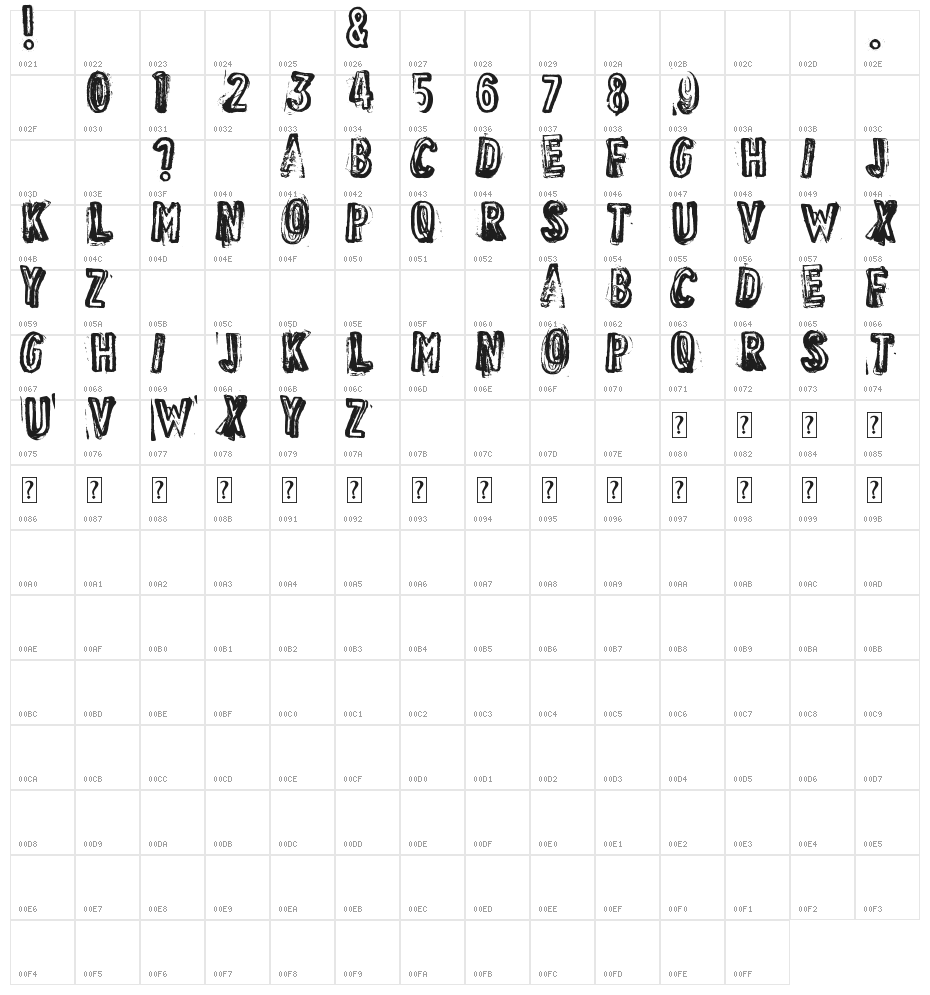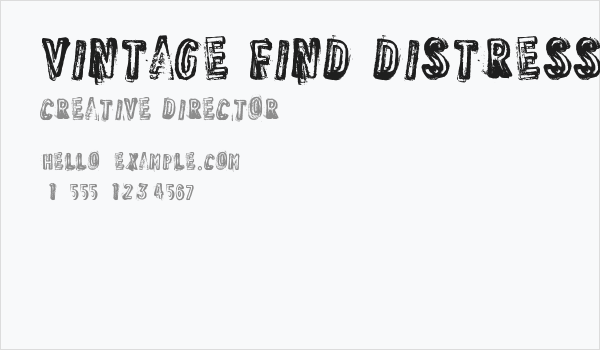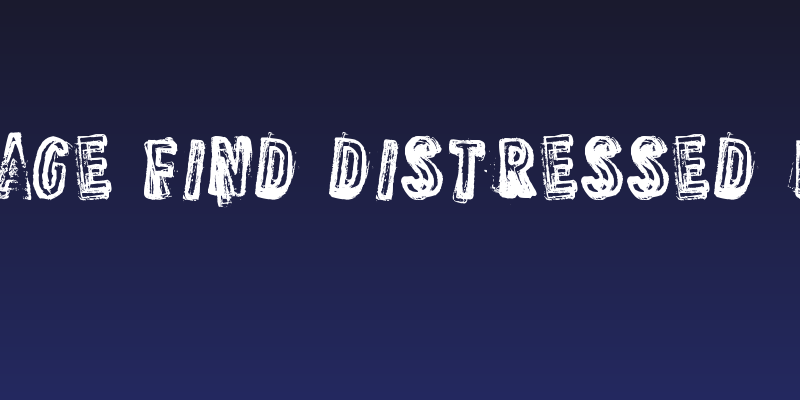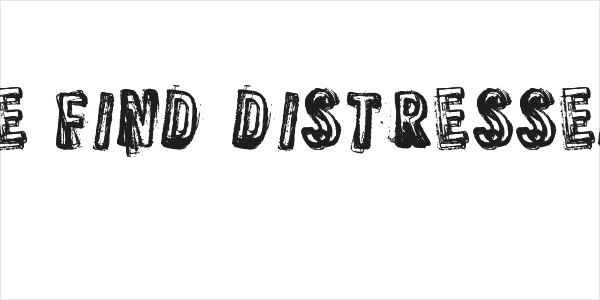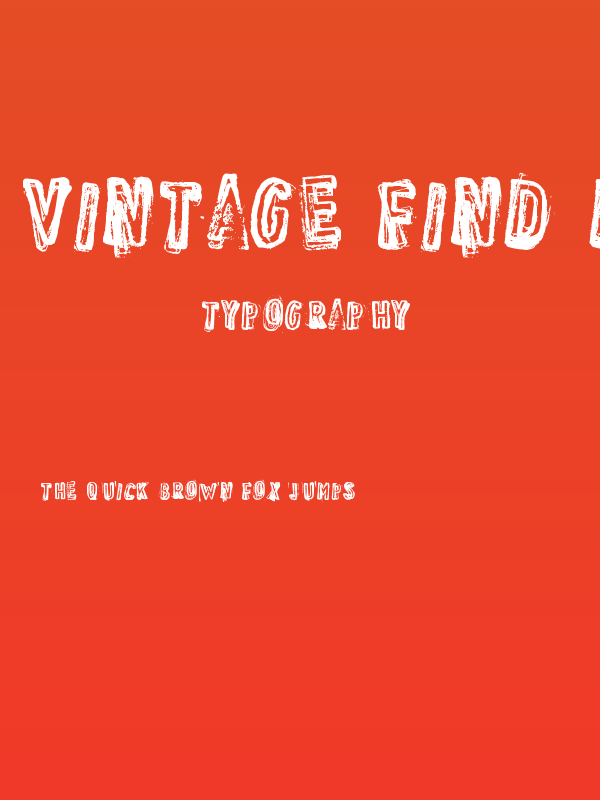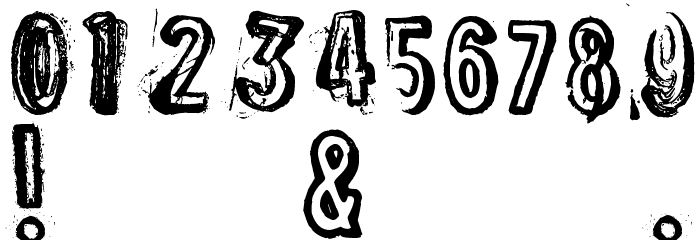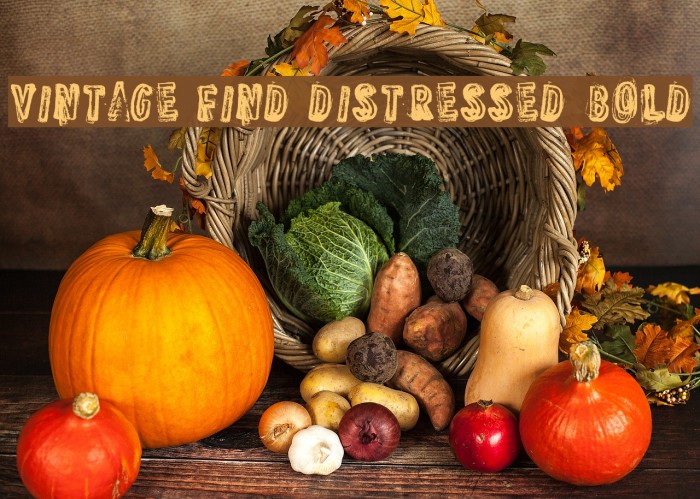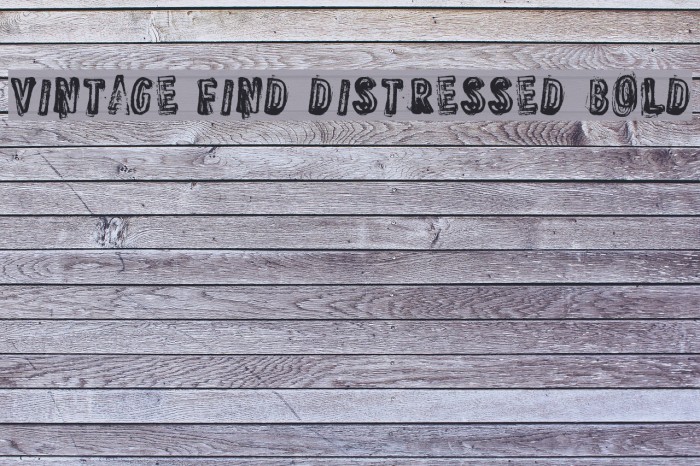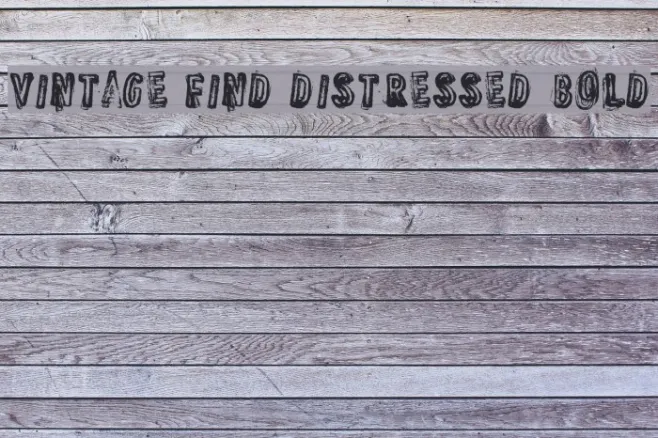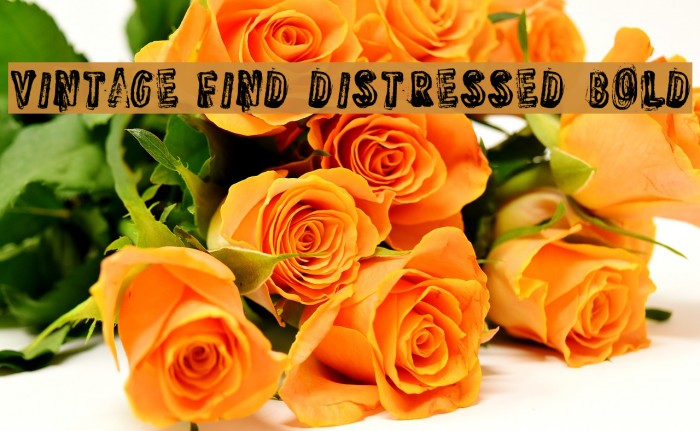
VINTAGE FIND DISTRESSED Bold Font
VINTAGE FIND DISTRESSED Bold Description
| Proposed Projects | Ideal for vintage-themed posters, retro branding, album covers, and any design needing a distressed, handcrafted look. |